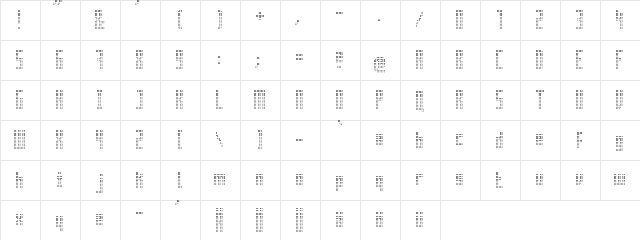
Superaircraft Medium
Design Context for Superaircraft Typeface
Superaircraft is a composed and adaptable typeface that performs quietly and consistently across a wide range of design contexts.